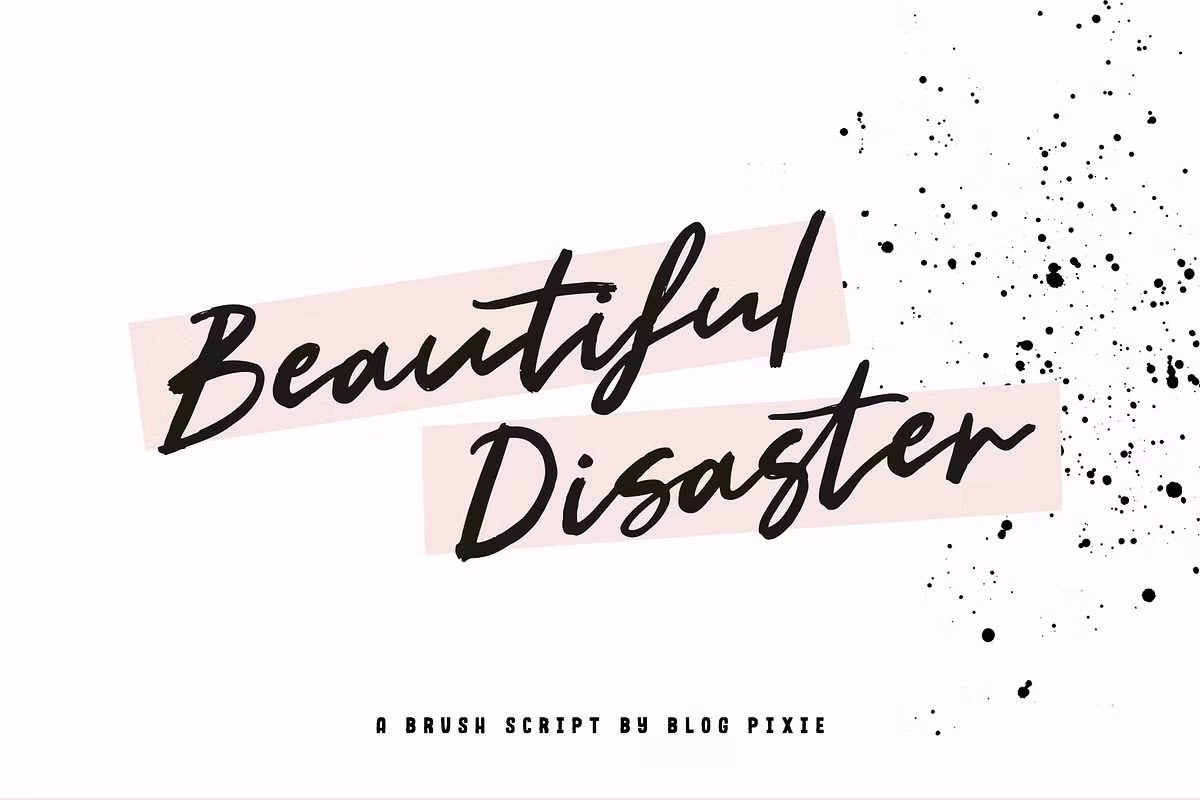
The Beautiful Disaster Script Font Free Download is a bold and elegant script typeface designed to add a touch of personality and sophistication to your designs. With its flowing, expressive strokes and artistic flair, this font is perfect for creating stunning logos, invitations, branding, and creative projects that require a handwritten yet stylish look. Whether you're designing for a wedding, a personal brand, or a creative campaign, Beautiful Disaster brings a unique and memorable vibe to your work.
Beautiful Disaster Script Font Free Download is ideal for designers seeking a graceful yet bold handwritten font. Perfect for creating eye-catching, expressive designs, this font will help your projects stand out. Download it today and infuse your creative work with the beauty and elegance of Beautiful Disaster!